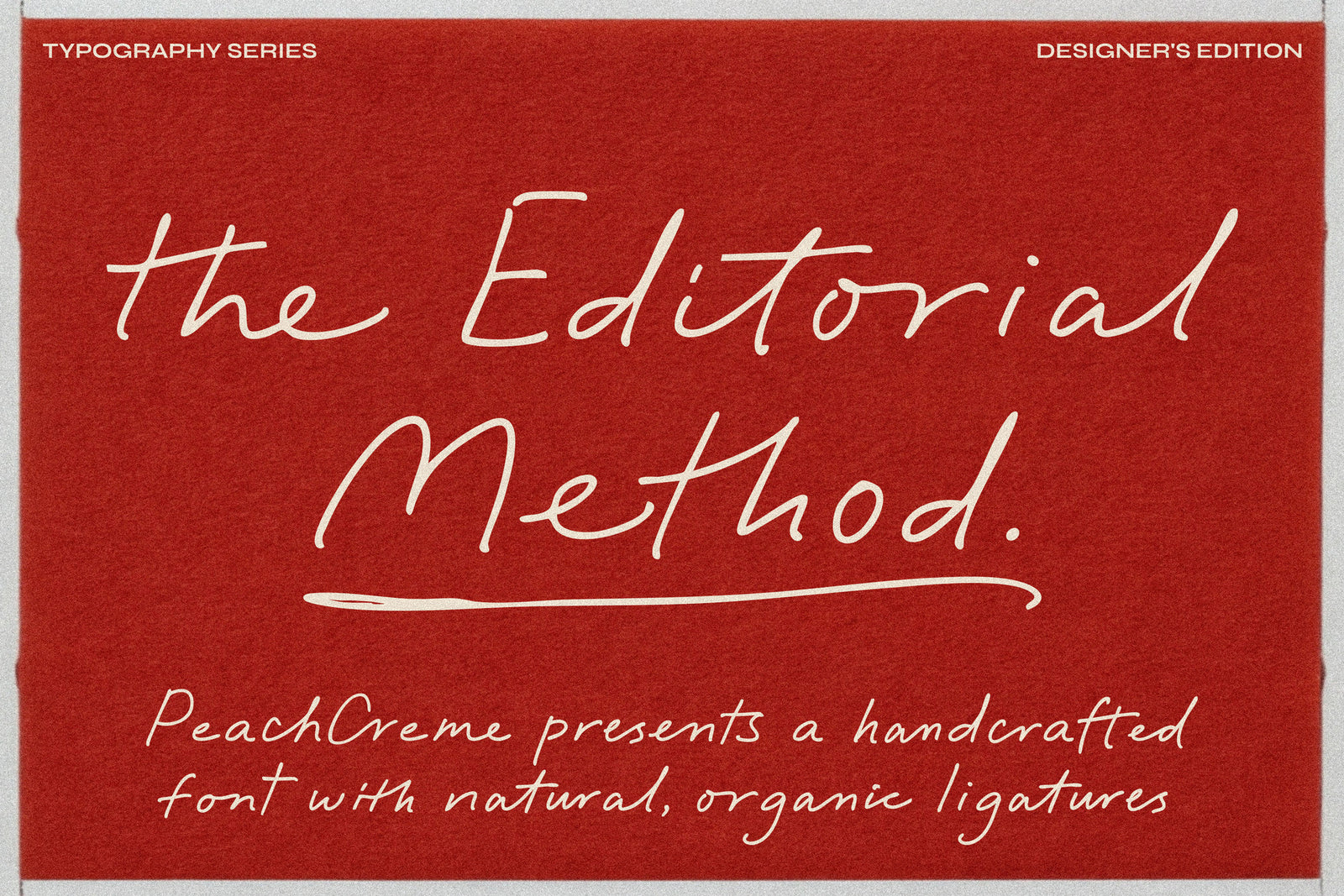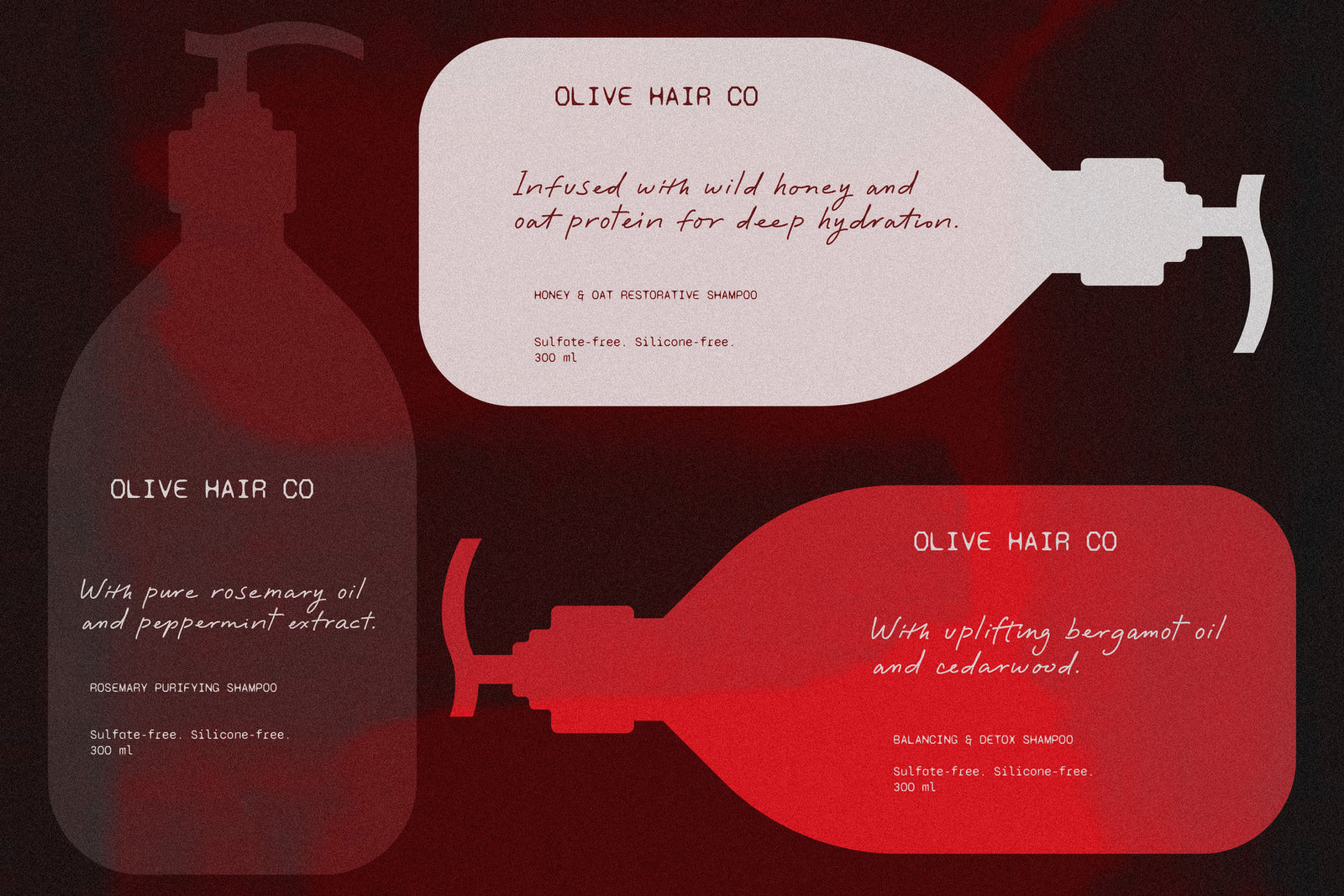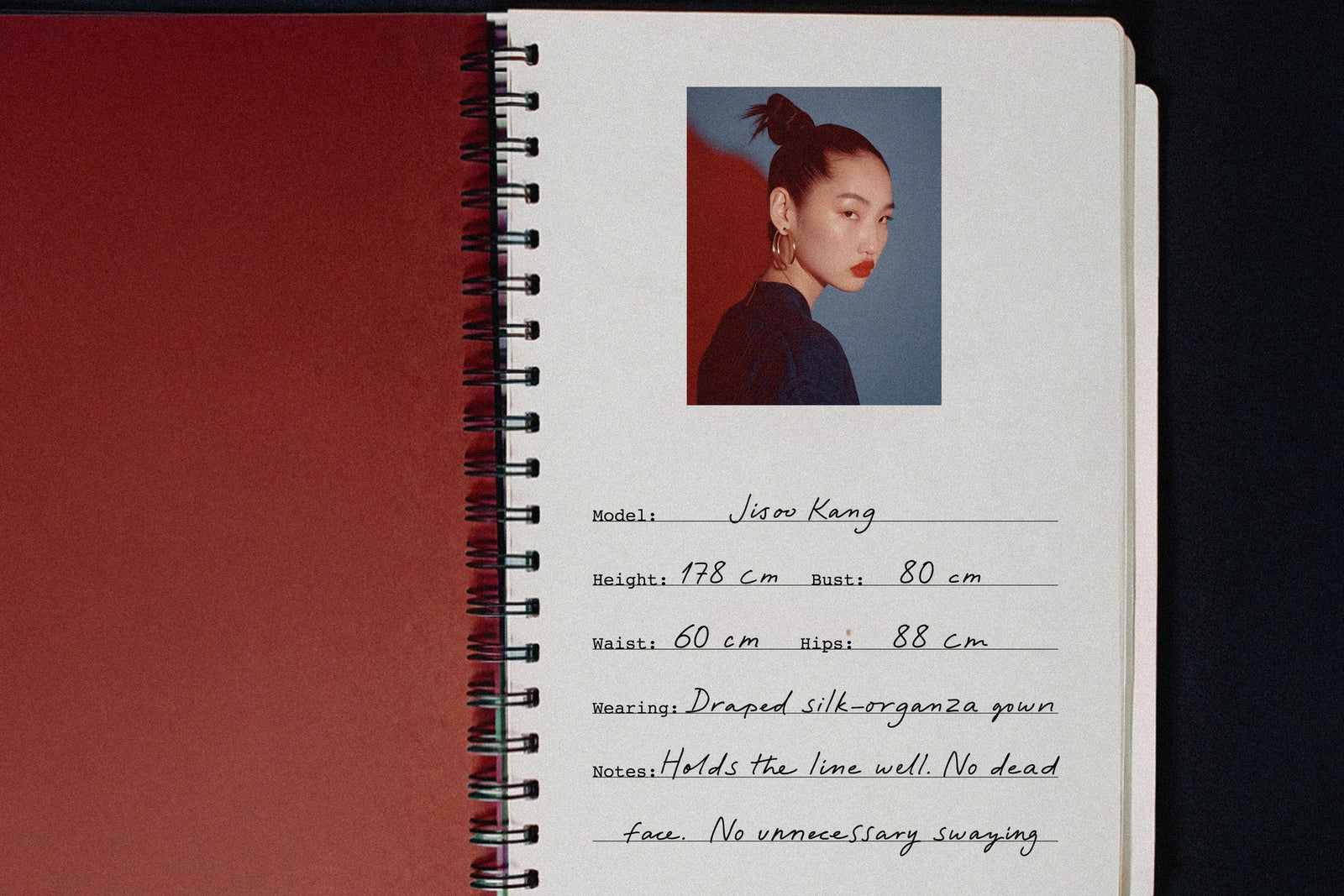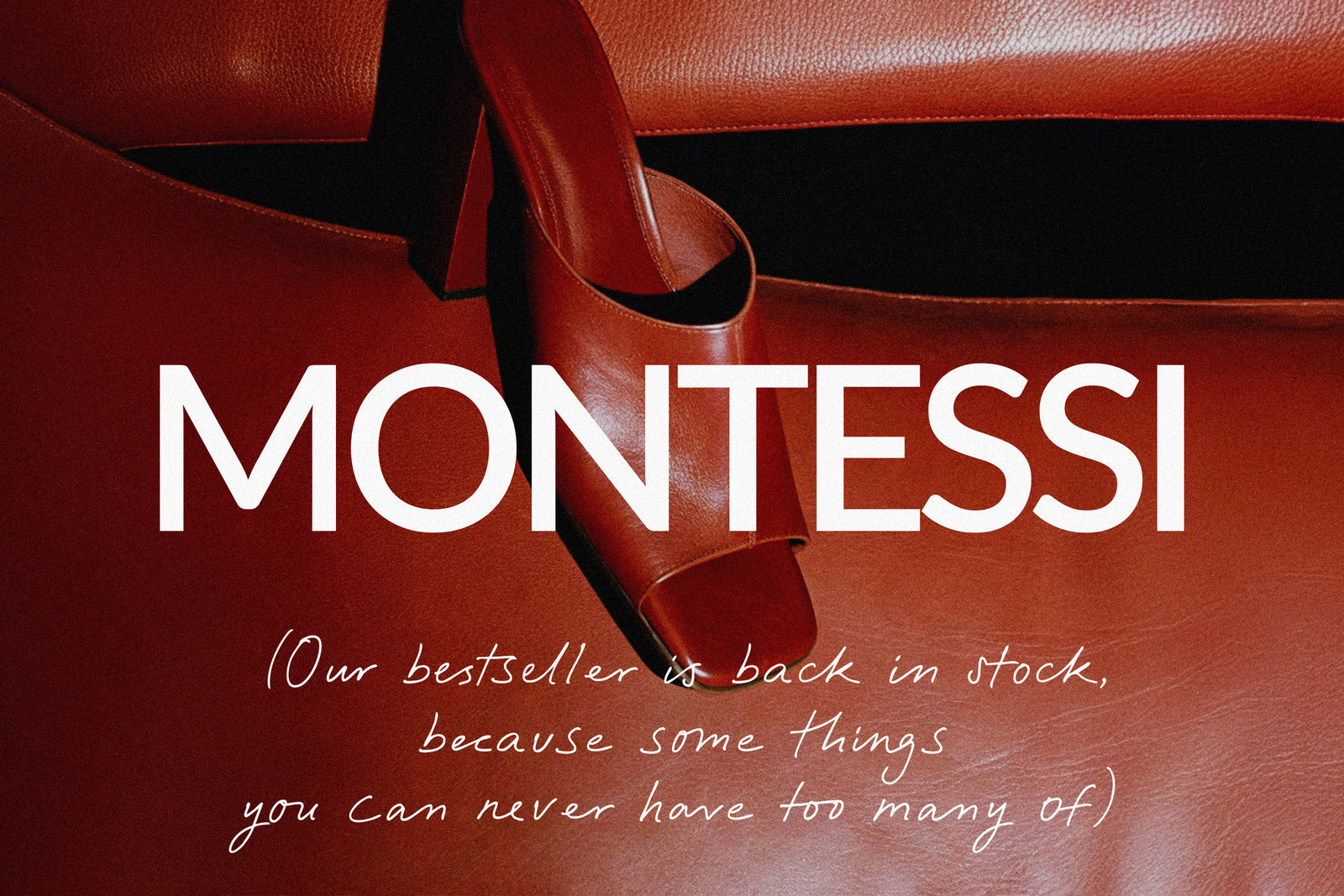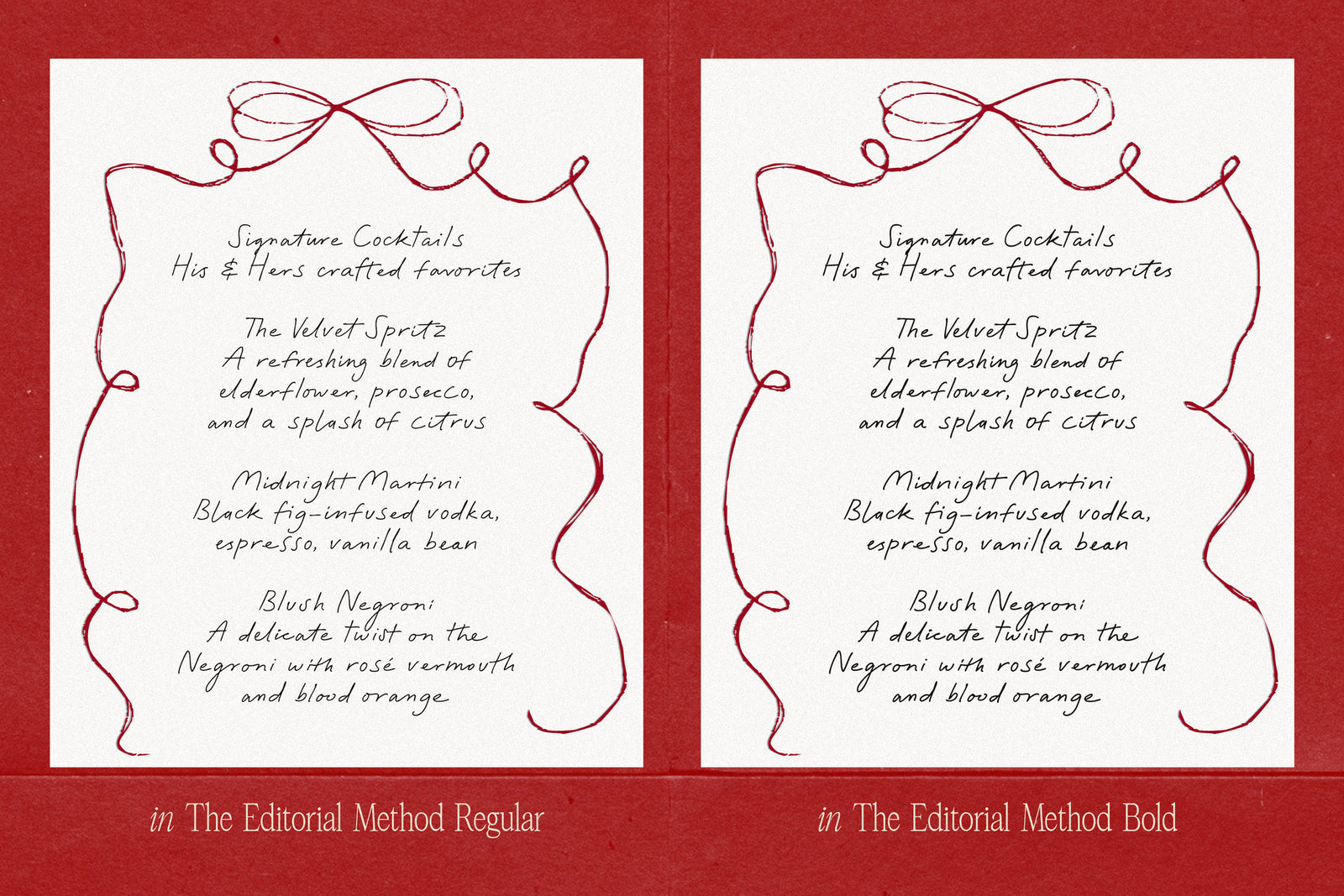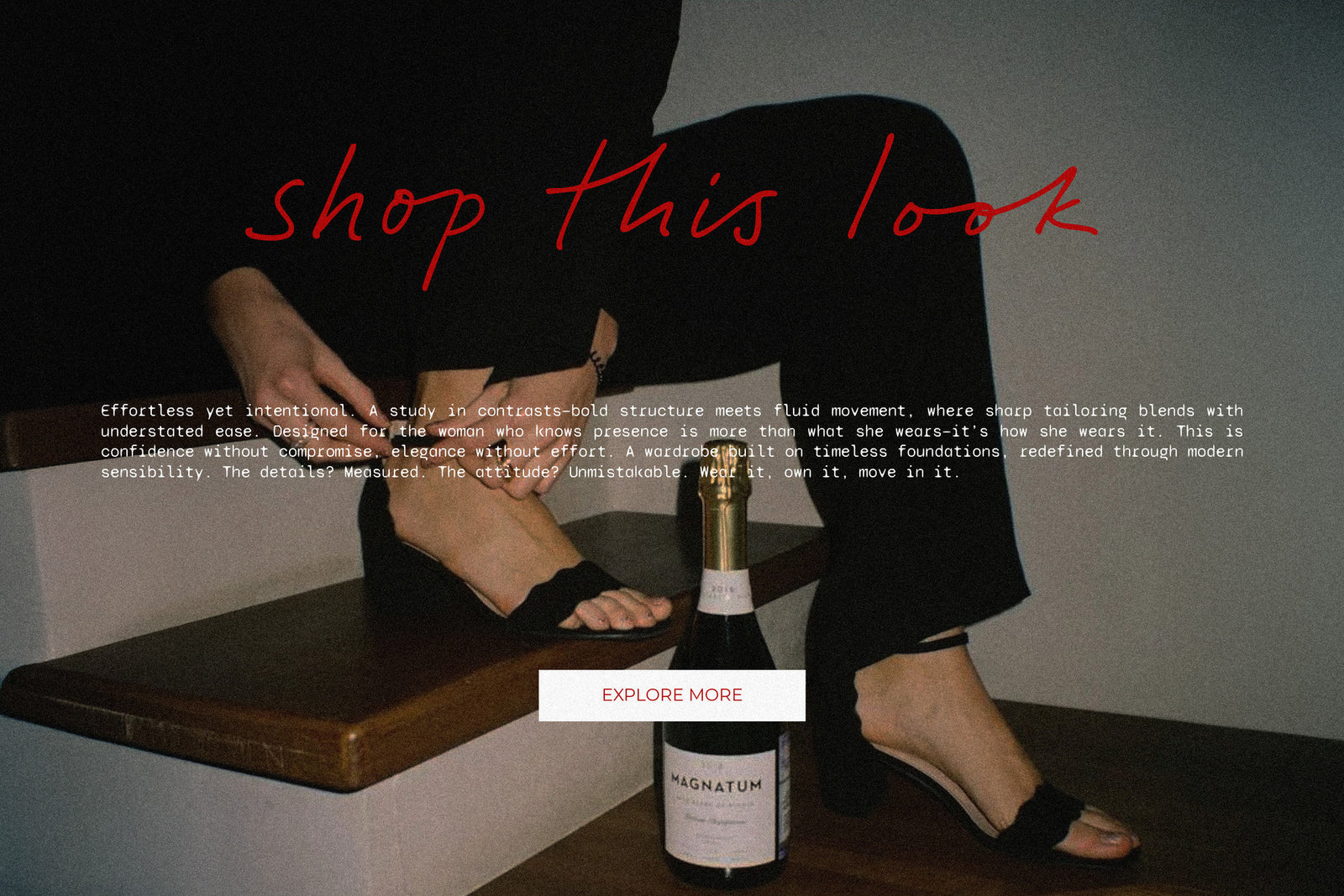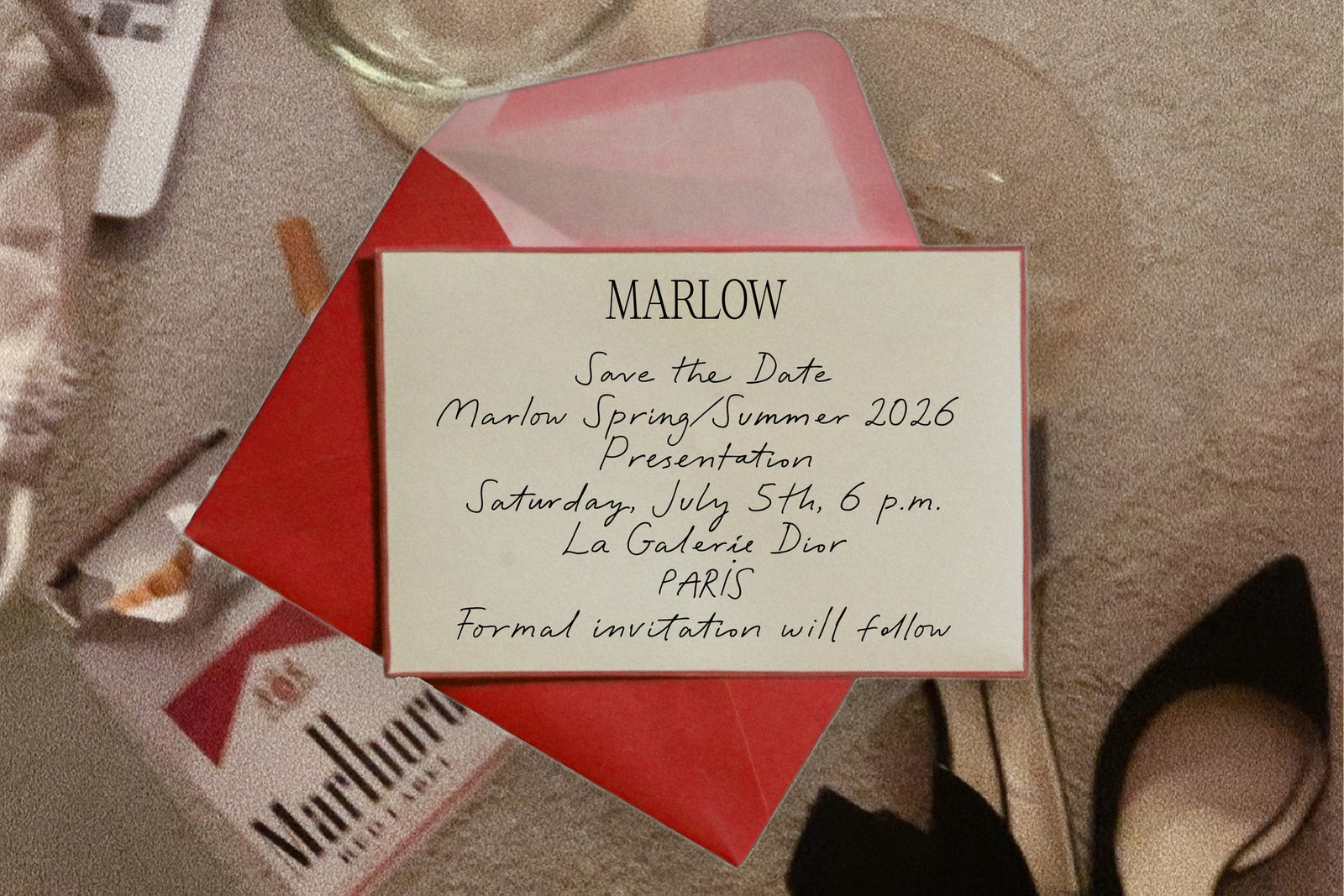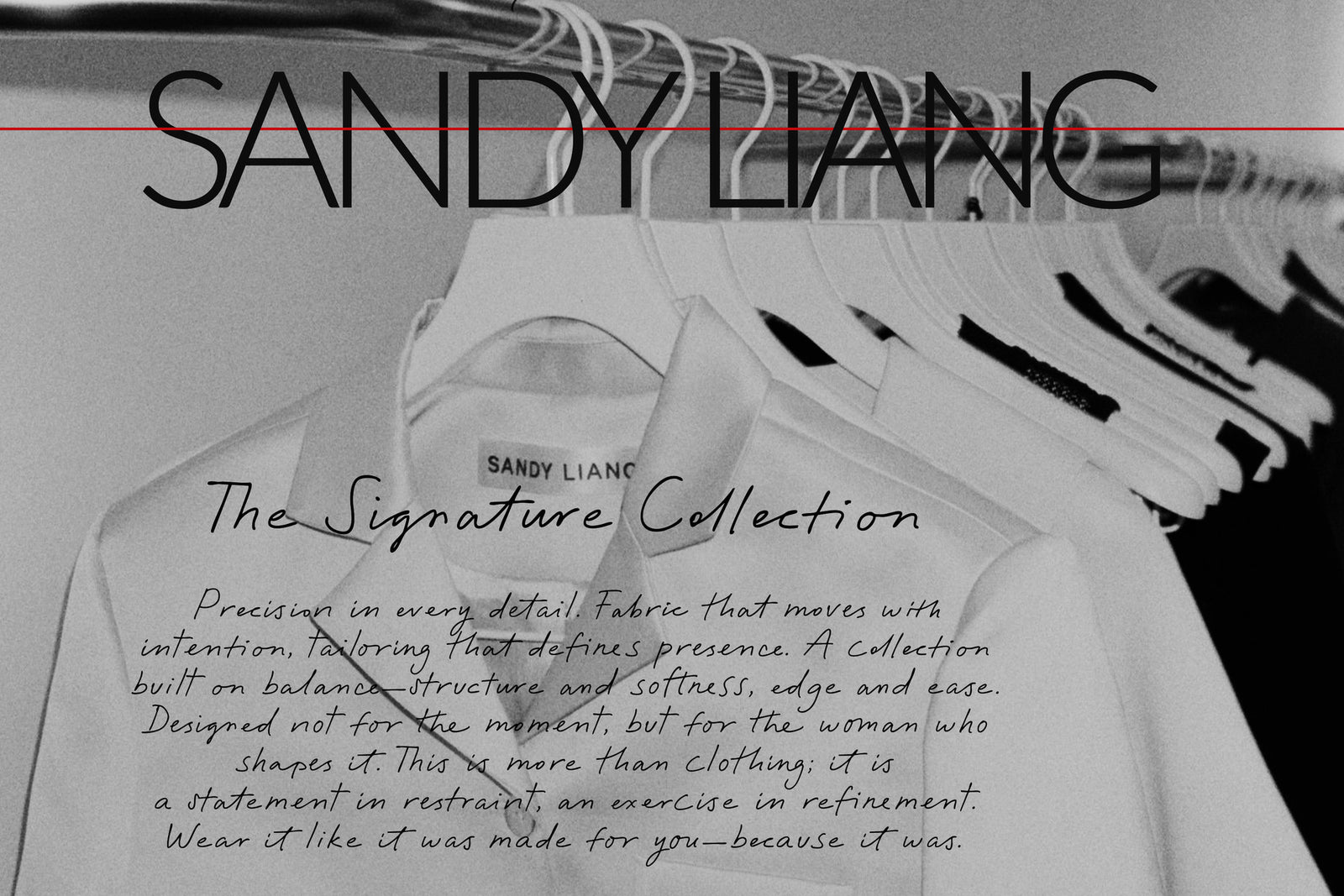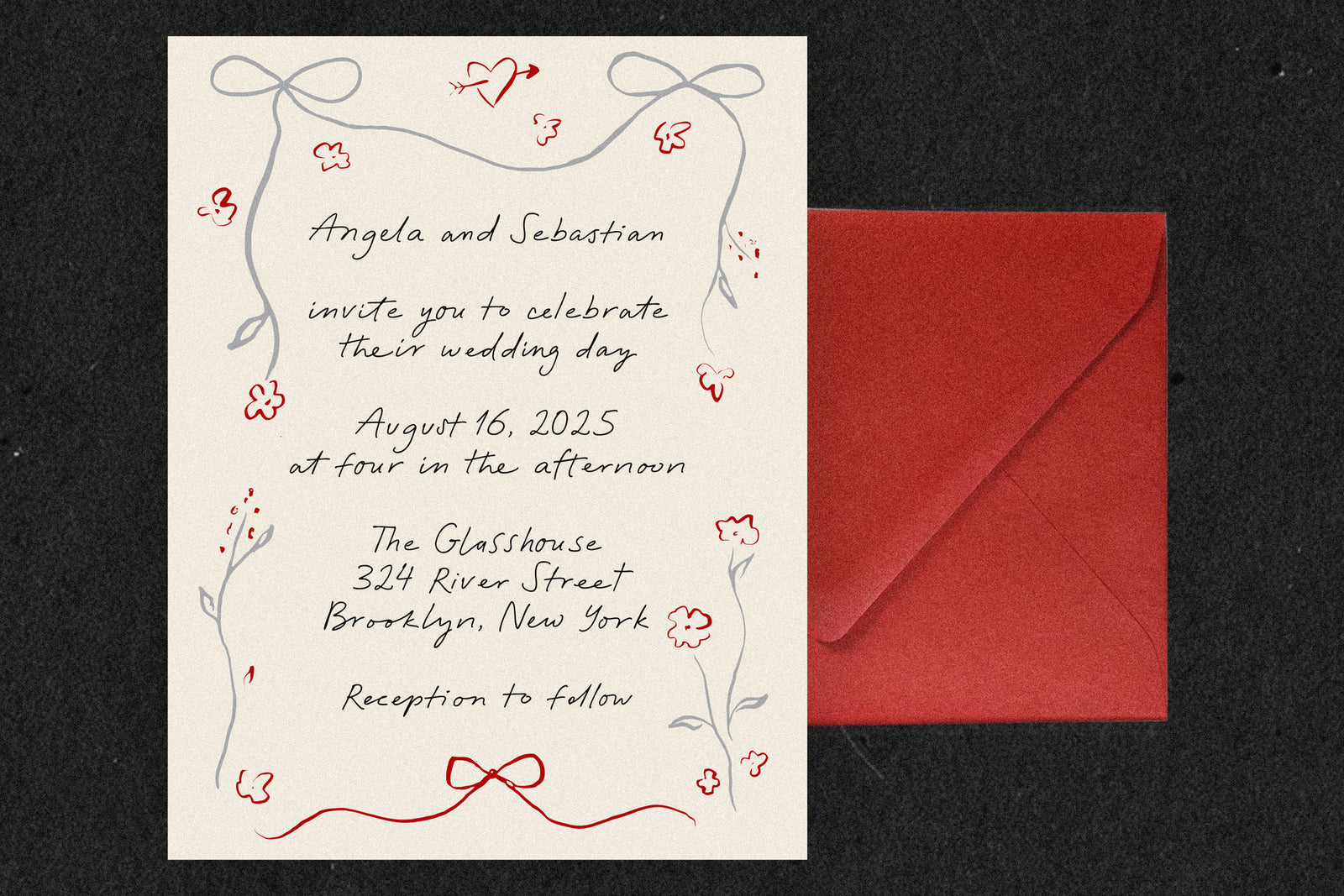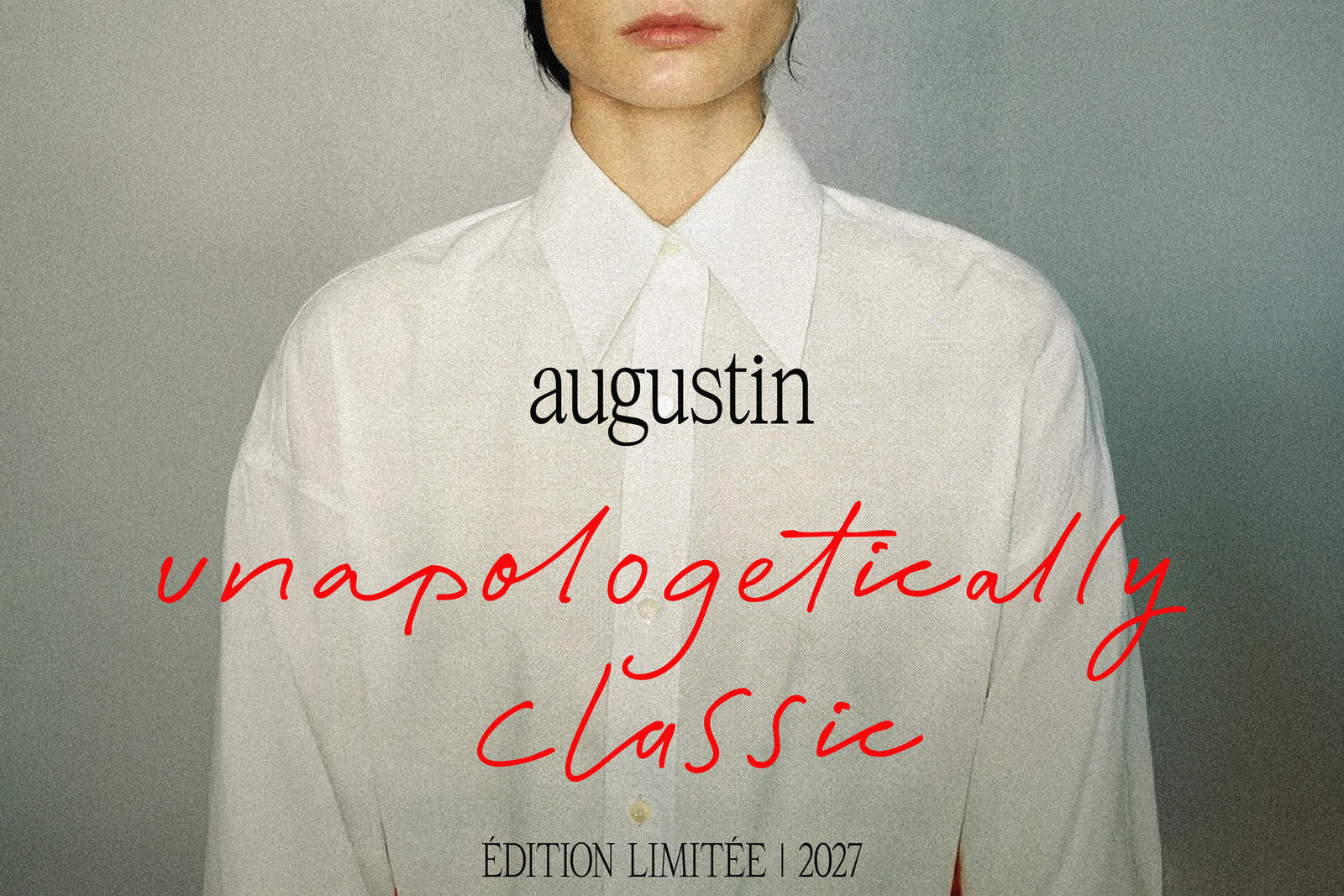
The Editorial Method // Casual font
The Editorial Method is a refined script font with a balance of fluid movement and structured elegance. Designed with natural, organic ligatures, it adapts seamlessly to both formal and expressive applications. With two weights—regular and bold—it works well for editorial design, branding, invitations, and understated luxury aesthetics. The alternative uppercase set adds variety, while the ligatures create a natural, handwritten rhythm.